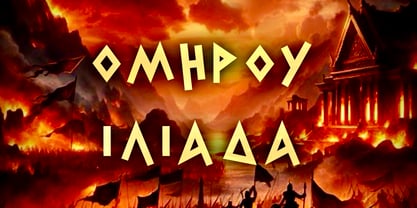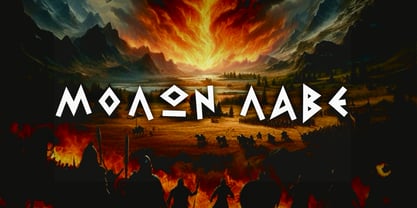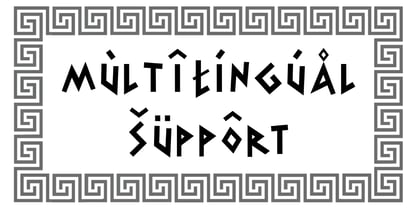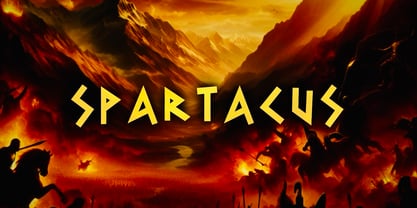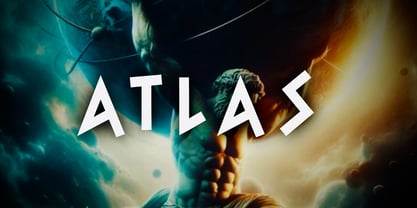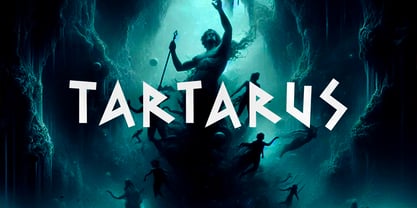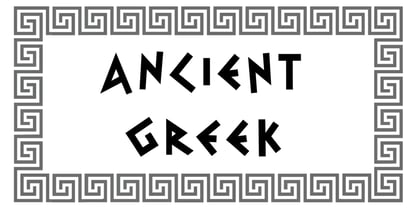
Tartarus
The Tartarus Font Family was designed by Ioanna Ladopoulou and published by Joanna Vu. Tartarus contains 3 styles and family package options.
"Tartarus" is a minimal, geometric font, inspired by Ancient Greece, and designed so that it resembles Ancient Greek decorations (such as meanders, inscriptions on ancient ruins etc)
Whether you wish to design something related to Ancient Greece or simply make a statement, "Tartarus" has got you covered.
Its simple, bold lines make the font ideal not only for logos, headlines etc, but also for longer text.
Supports most latin-derived languages, as well as Greek and Cyrillic.